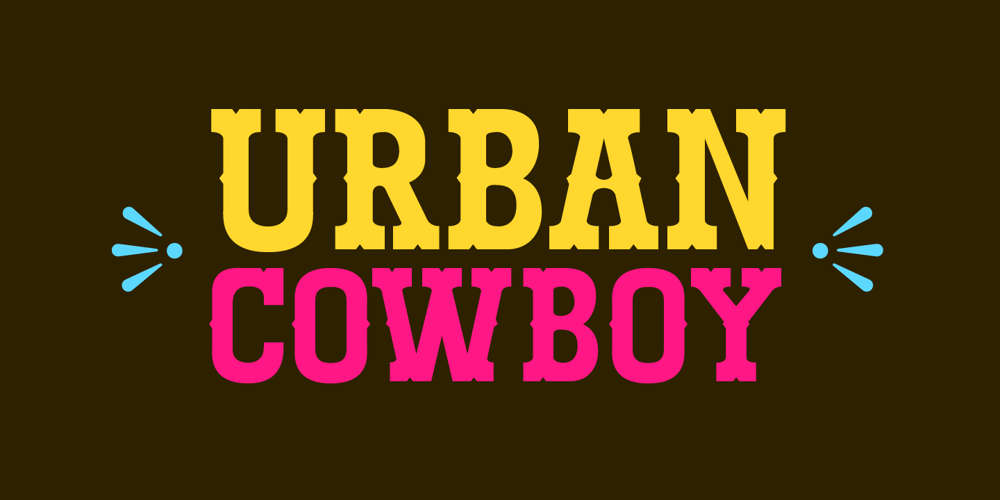
Urban Cowboy
Urban Cowboy font
Urban Cowboy Font Family was designed by Miguel Ibarra and published by Miguel Ibarra Design. Urban Cowboy contains 1 styles and family package options. Urban Cowboy is a western styled typeface created by Miguel Ibarra. It was designed specifically for display and headline purposes. Urban Cowboy is a fun and bold typeface, that has a combination of western slab serifs with a modern “Tuscan” form. Perfect for that western look, or for a bold logotype. A single set of stylistic alternates can also be applied under ss01 for applications that support them.